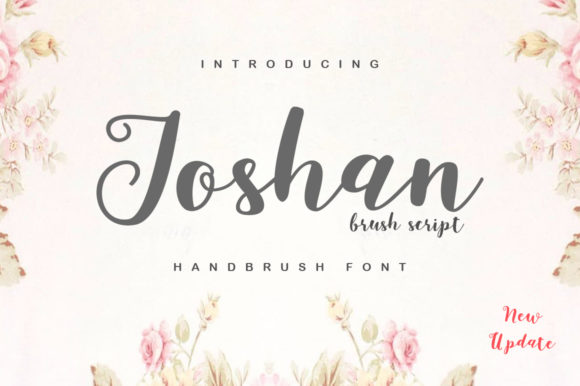
Discover Joshan Brush Font, an exquisitely hand-crafted script that captures the timeless essence of ancient manuscripts. A captivating symphony of strokes and flourishes, this font is a true masterpiece, ready to bring a touch of sophistication and elegance to your creative projects.
Unleash your inner artist and elevate your designs with this enchanting font. Joshan Brush is meticulously designed to evoke a sense of nostalgia and authenticity, bringing a touch of history to your modern creations. Its organic, flowing lines and delicate ornamentation lend a timeless charm that will captivate your audience.
With Joshan Brush Font, you'll embark on a journey through the ages, where words dance across the page with grace and fluidity. Experience the joy of creating designs that resonate with a sense of heritage and artistry. Let your imagination soar as you craft logos, branding, invitations, and more, knowing that every letter you type carries the weight of history.
This versatile font is not just a collection of characters; it's a gateway to a world of creative possibilities. Whether you're a seasoned designer or just starting your artistic journey, Joshan Brush Font will ignite your passion and fuel your imagination. Its intuitive design and user-friendly interface make it accessible to all, allowing you to effortlessly transform your ideas into stunning visual masterpieces.
As you explore the depths of Joshan Brush Font, you'll discover a treasure trove of creative potential. Its intricate details and expressive strokes invite you to experiment, to blend colors and textures, to create designs that are as unique and captivating as your imagination. Let your creativity flourish as you craft designs that tell stories, evoke emotions, and leave a lasting impression.
Join the ranks of creative visionaries who have embraced the magic of Joshan Brush Font. Let your designs stand out from the crowd with an elegance and charm that only this hand-painted script can provide. Step into the realm of artistic excellence and experience the transformative power of Joshan Brush Font today.